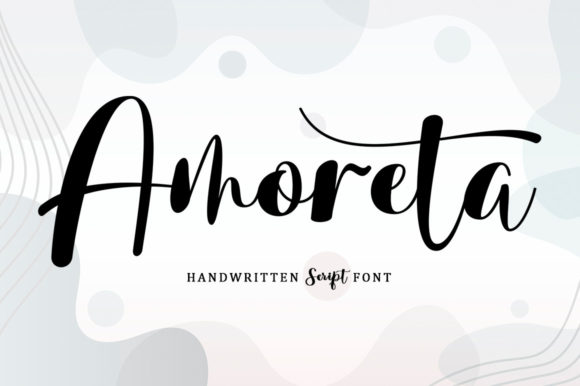
Unleash the Charm of Amoreta Font: A Stroke of Beauty for Your Creative Endeavors
Dive into the world of elegance and sophistication with Amoreta Font, a captivating handwritten masterpiece that exudes timeless beauty. Its graceful curves and delicate strokes bring a touch of charm to any design, making it the perfect choice for adding a personal touch to your creative projects.
Amoreta Font: The Epitome of Modern Aesthetics
With its contemporary flair, Amoreta Font is the epitome of modern aesthetics. Its clean lines and minimalist style make it ideal for creating eye-catching logos, branding, and stunning quotes that resonate with the sensibilities of today's design enthusiasts.
Amoreta Font: Your Gateway to Creative Expression
Amoreta Font opens up a world of creative possibilities, empowering you to express your unique style and vision. Whether you're a seasoned designer or just starting your creative journey, this font is your perfect companion. Its versatility allows you to craft designs that reflect your personality and captivate your audience.
Amoreta Font: The Key to Unlocking Your Design Potential
Unlock the full potential of your design projects with Amoreta Font. Its PUA encoding grants you effortless access to all the glyphs and sweeps, expanding your creative horizons and enabling you to craft intricate and captivating designs that leave a lasting impression.
Amoreta Font: A Symphony of Elegance and Functionality
Amoreta Font strikes a harmonious balance between elegance and functionality. Its exquisite design pairs seamlessly with its user-friendly features, making it a joy to work with. Experience the seamless flow of creativity as you effortlessly bring your design visions to life.